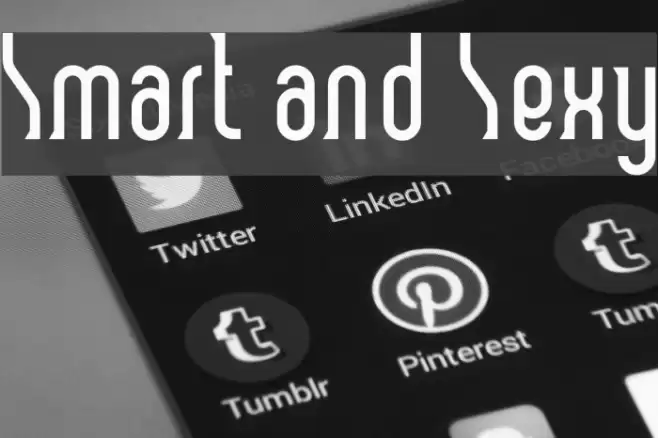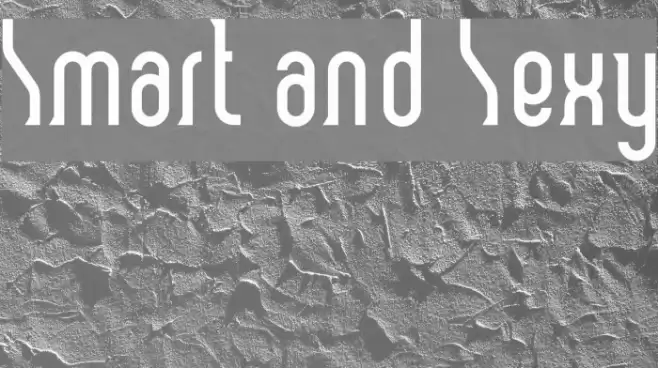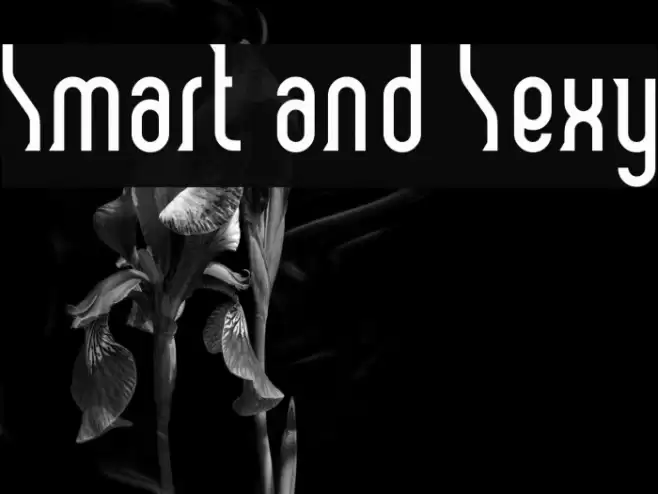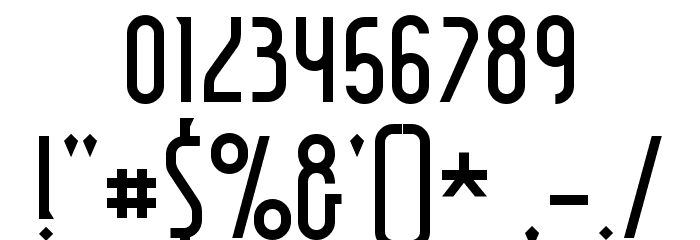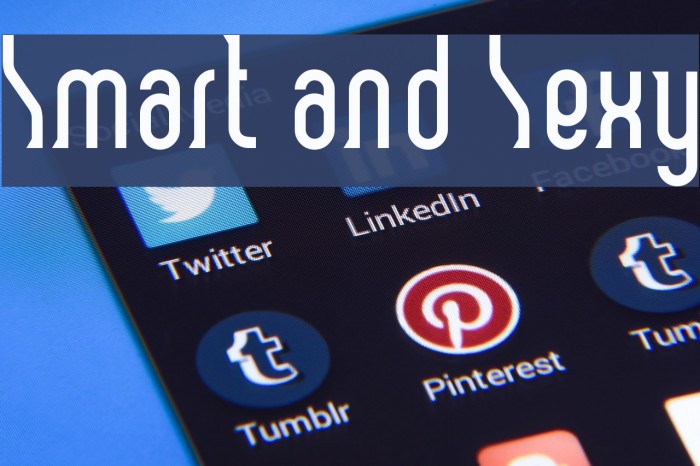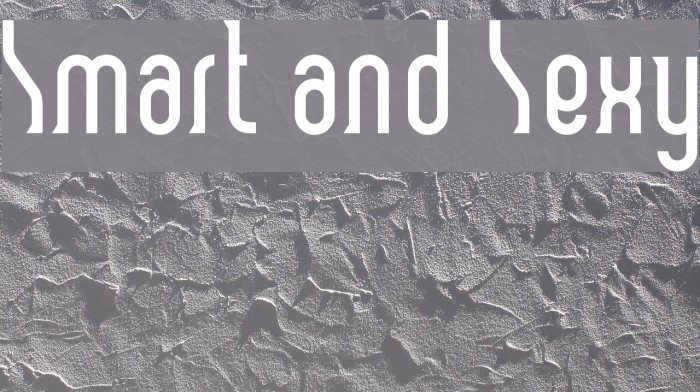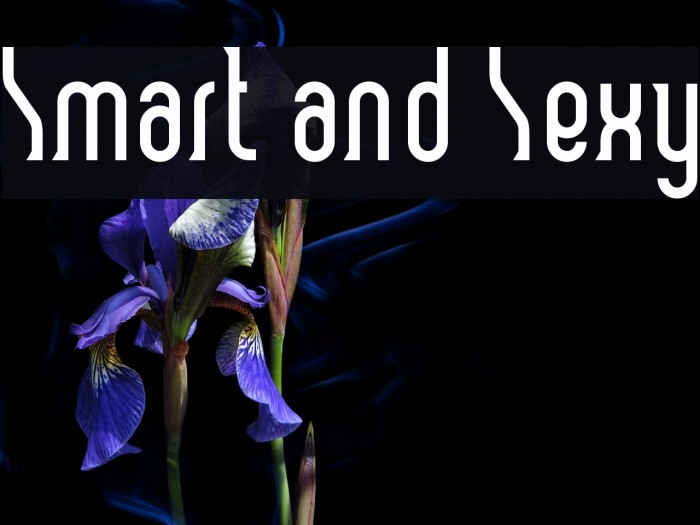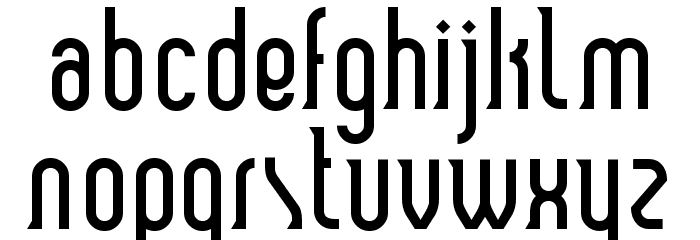
Smart and Sexy Font
Smart and Sexy Description
This font features a sleek, modern design with a distinct geometric influence. The characters are elongated and narrow, giving a sophisticated and stylish appearance. The uppercase letters have a unique angularity, while the lowercase letters maintain a consistent flow with subtle curves. The numerals are equally distinctive, with a futuristic flair that complements the overall aesthetic. Special characters are designed to match the font's clean lines and modern vibe, making it suitable for a variety of creative applications.
A modern, geometric font with elongated, narrow characters and a stylish appearance from Script fonts.
- Proposed Projects: Ideal for branding, fashion magazines, modern logos, and innovative product packaging.
- Use Case: Logos, Headlines, Branding